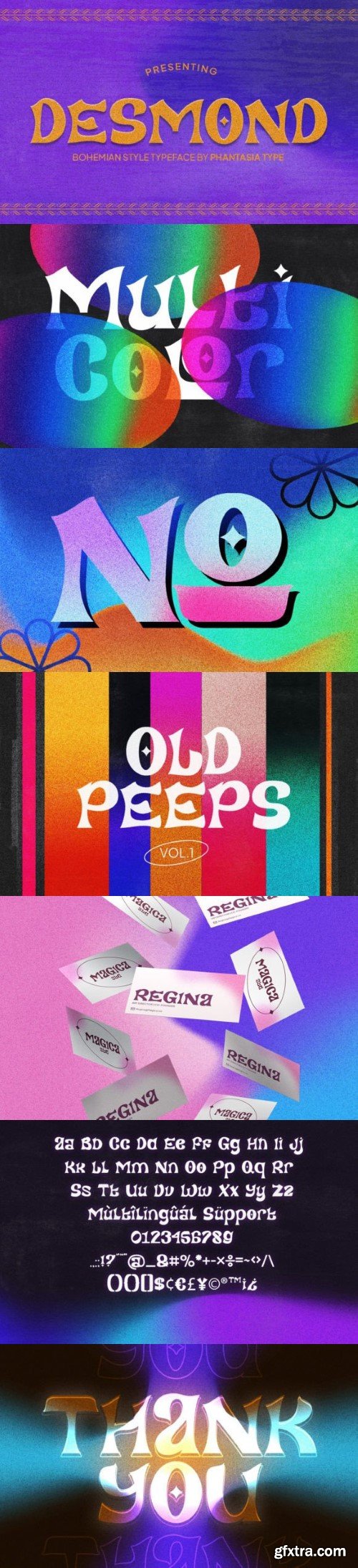
德斯蒙德·-font
If you are looking for a display font that has a bohemian theme with a funky and psychedelic twist, look no further than Desmond. Desmond is a unique and stunning font that will add some flair and personality to your designs. You can use Desmond for any psychedelic-themed design project, such as posters, flyers, banners, or social media posts. Desmond is the ultimate font for creating designs that are out of this world.